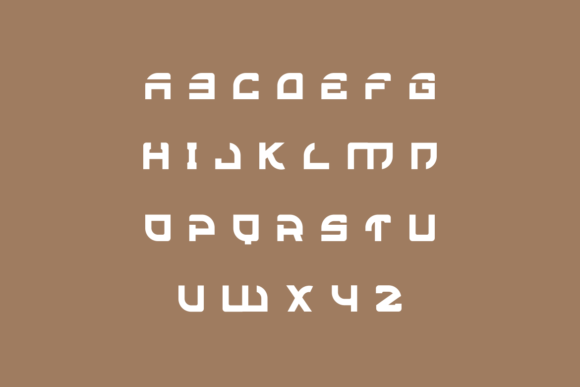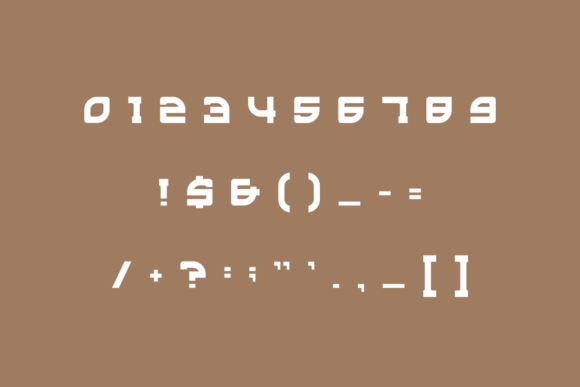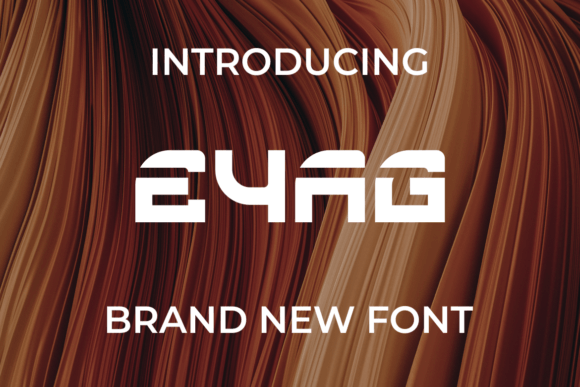
Eyag Font: Elevate Your Designs with a Cool and Modern Display Font
Eyag is a cool and modern display font that can instantly elevate your creative projects and make them stand out. This unique display font is designed to add a touch of sophistication and elegance to your designs, making it perfect for crafters, designers, and anyone looking to create visually stunning content.
What Makes Eyag Font So Special?
Eyag font is a carefully crafted display font that boasts a distinctive and modern aesthetic. Its unique design elements make it an excellent choice for a wide range of creative projects, from branding and advertising to packaging and digital media. With Eyag font, you can add a touch of personality and style to your designs, setting them apart from the crowd.
Key Features of Eyag Font
- Modern and Cool Design: Eyag font features a sleek and contemporary design that is sure to grab attention.
- Unique and Distinctive: This display font has a one-of-a-kind aesthetic that sets it apart from other fonts.
- Highly Versatile: Eyag font can be used for a wide range of creative projects, from digital media to print materials.
- Easily Readable: Despite its unique design, Eyag font remains highly readable, even at smaller sizes.
How to Use Eyag Font in Your Designs
Adding Eyag font to your designs is easy. Here are a few tips to get you started:
- Use it as a Header Font: Eyag font is perfect for use as a header font, adding a touch of elegance and sophistication to your designs.
- Experiment with Different Sizes: Don’t be afraid to experiment with different font sizes to create visual interest and hierarchy in your designs.
- Pair it with Other Fonts: Eyag font pairs well with a range of other fonts, making it easy to create visually appealing and harmonious designs.
Benefits of Using Eyag Font
There are many benefits to using Eyag font in your designs. Here are just a few:
- Increased Visual Appeal: Eyag font can instantly elevate the visual appeal of your designs, making them more engaging and attention-grabbing.
- Improved Brand Identity: By using Eyag font in your designs, you can create a consistent and cohesive brand identity that sets you apart from the competition.
- Enhanced Creativity: With Eyag font, you can add a touch of personality and style to your designs, allowing you to express your creativity and bring your ideas to life.
Who Can Benefit from Using Eyag Font?
Eyag font is perfect for a wide range of designers and crafters, including:
- Graphic Designers: Eyag font is a great addition to any graphic designer’s toolkit, providing a unique and versatile font for a range of projects.
- Digital Artists: Digital artists can use Eyag font to add a touch of personality and style to their artwork.
- Crafters: Crafters can use Eyag font to create visually stunning crafts, from handmade cards to DIY home decor.
Eyag font is a cool and modern display font that can instantly elevate your creative projects and make them stand out. With its unique design elements, high versatility, and ease of use, Eyag font is perfect for designers, crafters, and anyone looking to create visually stunning content. So why wait? Add Eyag font to your toolkit today and discover the difference it can make!